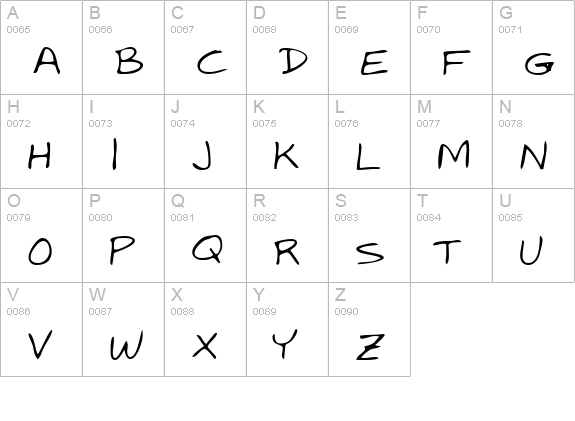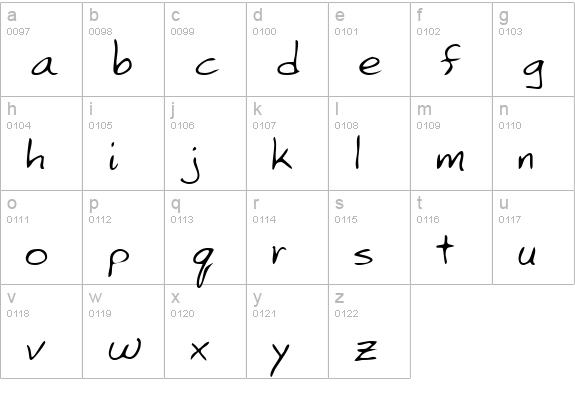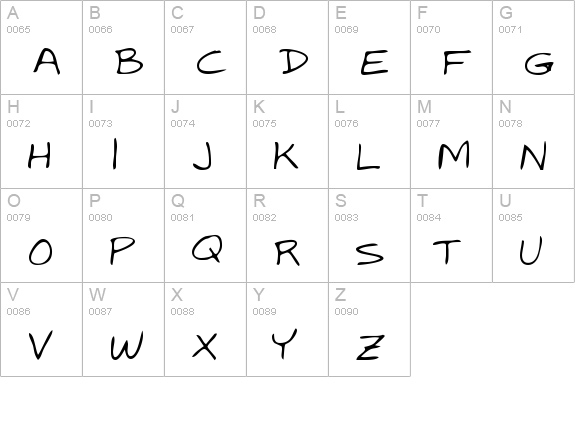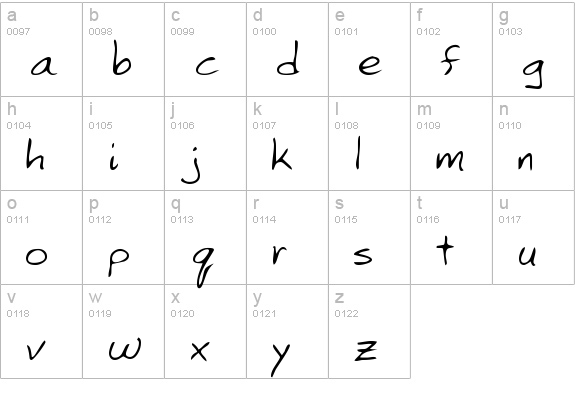
LarkinsHand Regular Font Details
LarkinsHand Regular is the standard, neutral variant in the LarkinsHand typeface family \xE2\x80\x94 well suited to general body text, paragraphs, and standard typographic work.
LarkinsHand Regular font is a charming and versatile typeface that exudes a sense of warmth and friendliness. Its handwritten style adds a personal touch to any design project, making it perfect for invitations, greeting cards, and signage. With its smooth curves and carefully crafted letterforms, LarkinsHand Regular font strikes the right balance between legibility and artistic flair. Its flowing strokes and slightly slanted characters give it a natural and organic look, making it especially suitable for projects that aim to evoke a sense of authenticity and human connection. One of the greatest advantages of LarkinsHand Regular font is that it is available for free download at FontsMarket.com. This means that designers and creatives can easily access and utilize this delightful font without any restrictions. Whether you're a professional designer or a hobbyist, you can freely incorporate LarkinsHand Regular font into your projects, adding a touch of whimsy and personality. The versatility of LarkinsHand Regular font is further enhanced by its extensive character set, which includes uppercase and lowercase letters, numbers, punctuation marks, and special symbols. This allows for seamless integration into various design styles and applications. LarkinsHand Regular font's clean and crisp appearance ensures excellent legibility even at smaller sizes, making it suitable for both print and digital mediums. Its versatility extends to different design contexts, including branding, packaging, editorial design, and social media graphics. In summary, LarkinsHand Regular font is a free, downloadable typeface that effortlessly combines elegance and playfulness. Its handwritten charm and wide range of applications make it an excellent choice for designers seeking to add a touch of personality and warmth to their projects. Download LarkinsHand Regular font today at FontsMarket.com and let your creativity flow freely.